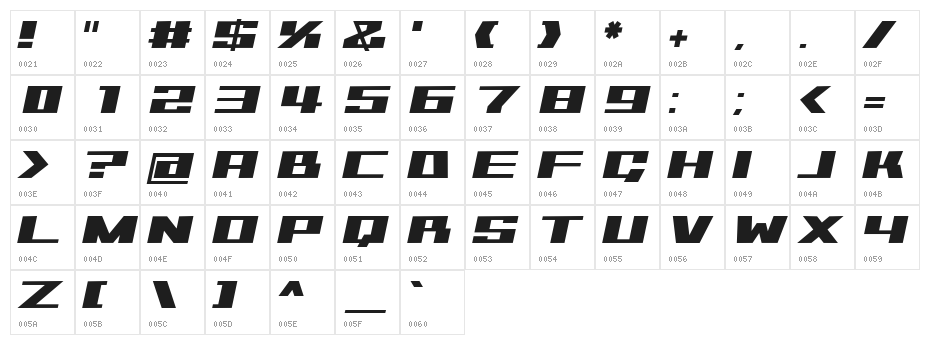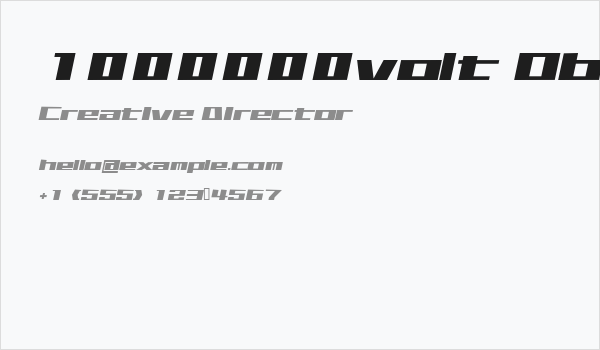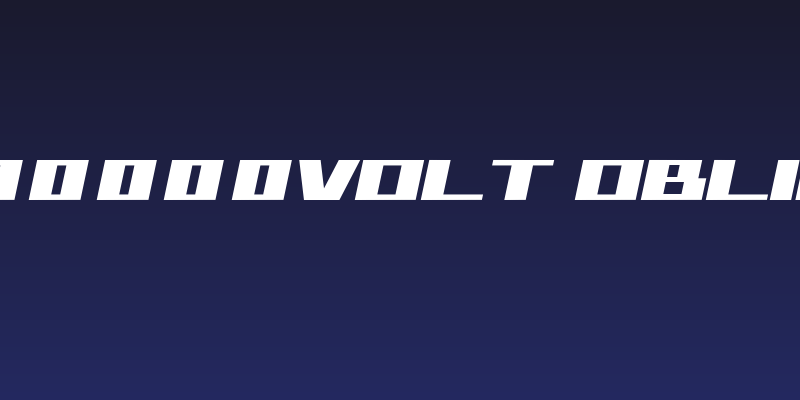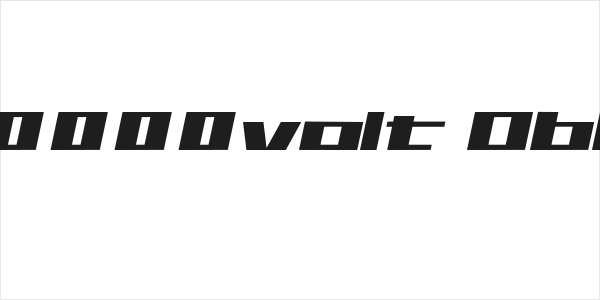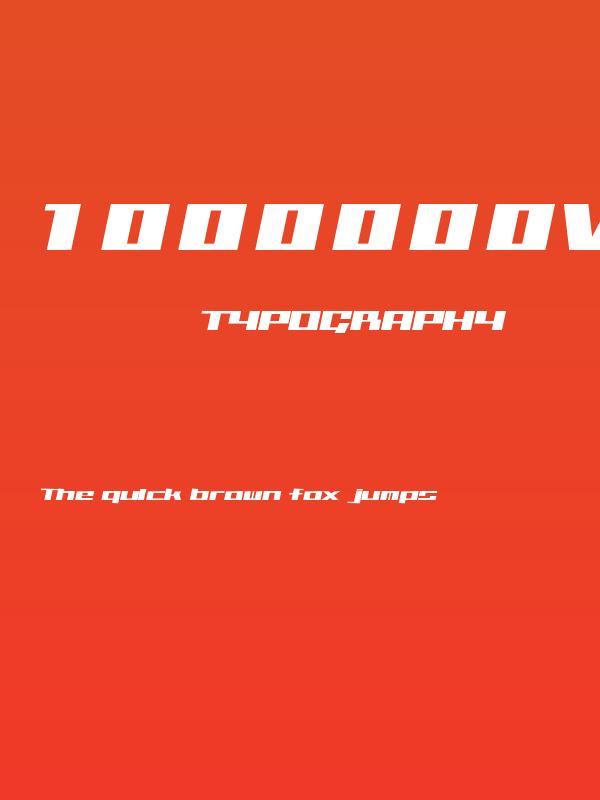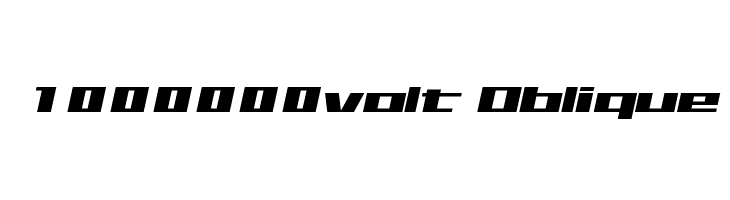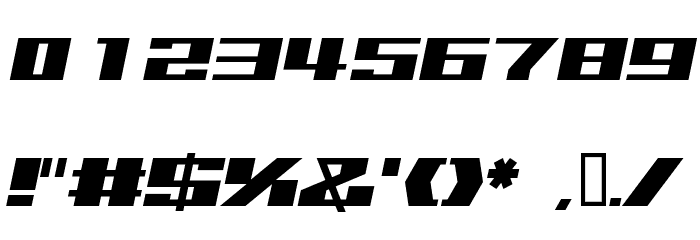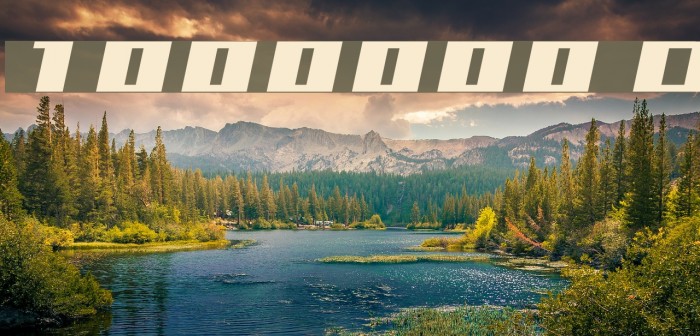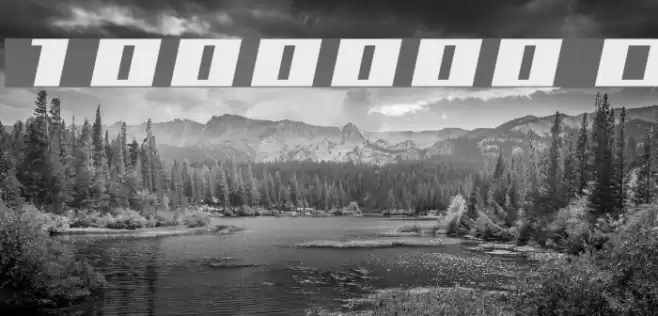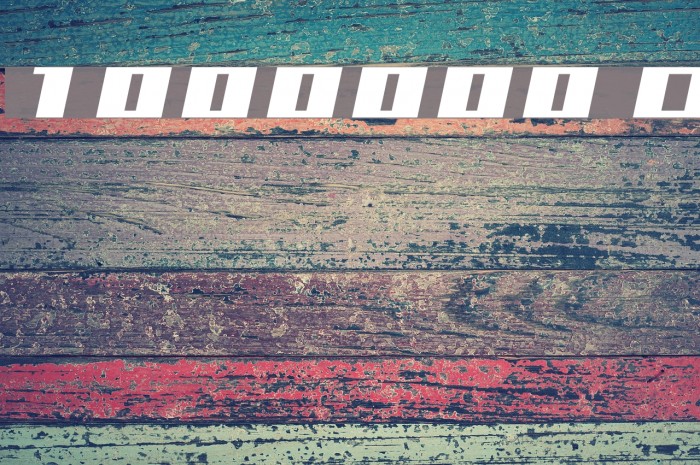
1000000volt Oblique Font
1000000volt Oblique Description
This font features a bold, angular design with a futuristic and dynamic appearance. The characters are sharply cut with a distinct slant, giving an oblique style that suggests movement and energy. The uppercase and lowercase letters maintain a consistent geometric structure, while the numbers and special characters follow the same angular theme. The font's strong presence makes it ideal for attention-grabbing designs. Its unique style is both modern and edgy, suitable for projects that require a bold statement.
| Proposed Projects | Ideal for sci-fi themed designs, video game titles, tech branding, and sports team logos. |